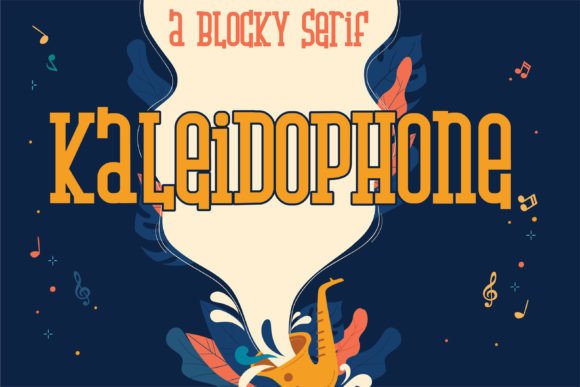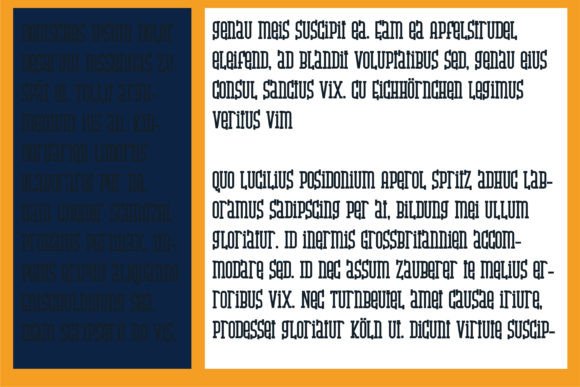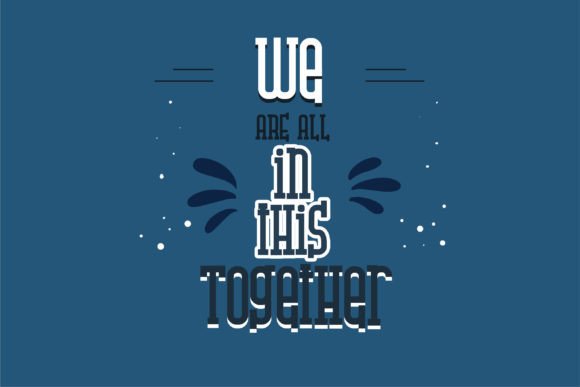
About Kaliedophone
This chunky, hand-crafted slab serif is squatty and has no descenders in the lowercase. These unique characteristics make it the perfect font for cool and original designs.